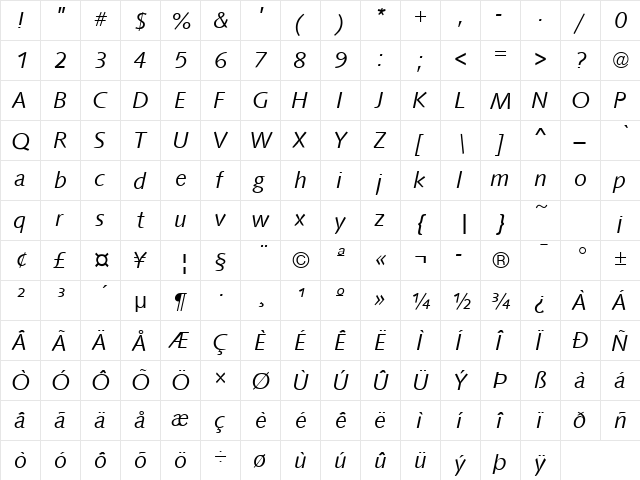
Syntax Italic
Design Context for Syntax Typeface
Syntax takes a measured approach to typography — its balanced proportions and neutral character make it a reliable workhorse for both digital and print work. The dynamic lean of this cut emphasises speed and emphasis in any layout.
Pro Tip: Use Syntax for emphasis, pull quotes, and subheadings where its slanted energy can add rhythm to the layout.